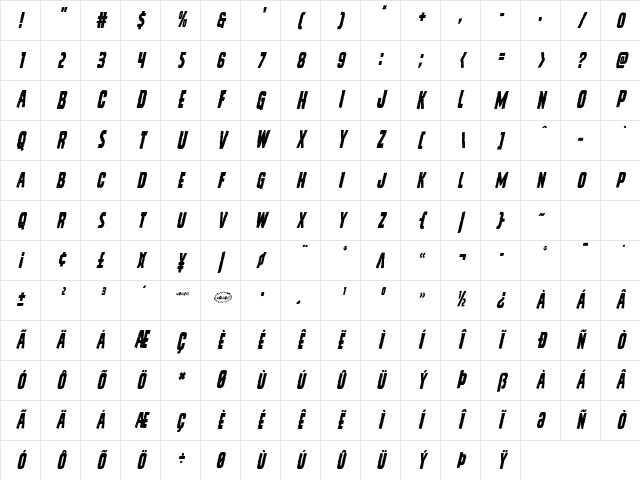
Vicious Hunger Condensed Italic Free Font
Vicious Hunger Condensed Italic Condensed  Italic
Style: Condensed Italic
Design Context for Vicious Hunger Condensed Italic
Vicious Hunger Condensed Italic is a composed and adaptable typeface that performs quietly and consistently across a wide range of design contexts. The slanted form adds forward momentum and visual energy. Its narrow stance lets it pack a punch even in space-constrained designs.
Pro Tip: Use Vicious Hunger Condensed Italic for emphasis, pull quotes, and subheadings where its slanted energy can add rhythm to the layout.